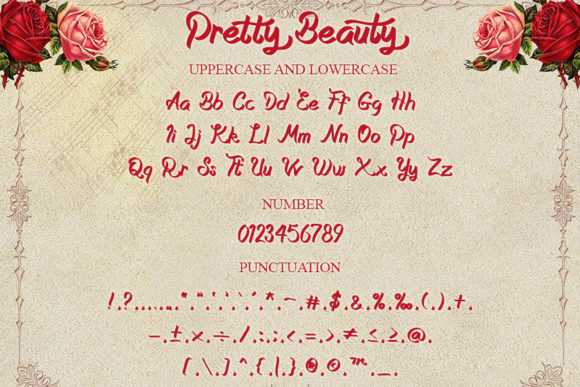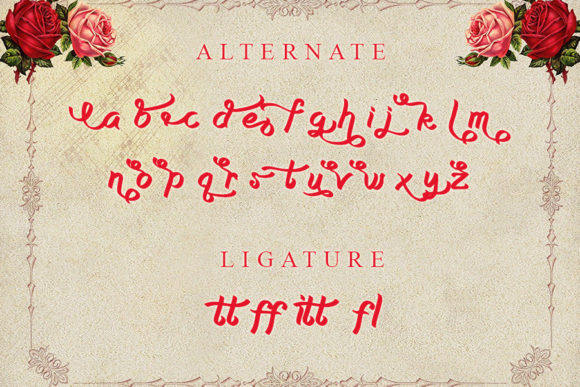
Introduction to Pretty Beauty Font
Have you ever found yourself staring at a blank canvas, longing to bring a design to life, but struggling to find the perfect font to match your vision? I know I have. As designers, we’re constantly on the hunt for the perfect typography to elevate our creative projects and make them truly stand out. And that’s where the Pretty Beauty Font comes in – a stunning, cursive handwritten font that’s sure to add a touch of magic to any design.
With its thick, playful letters and joyful feel, the Pretty Beauty Font is a game-changer for designers looking to add a romantic touch to their projects. Whether you’re working on a wedding invitation, a social media graphic, or a branding campaign, this font is sure to be a valuable addition to your design resource arsenal.
Key Features of Pretty Beauty Font
- High-quality, elegant design ideal for creative projects and design resources.
- Character set includes a wide range of alphabets, numbers, and symbols.
- Unique, handcrafted design with intricate details and subtle flair, making it a standout design resource.
Honest Review: Pretty Beauty Font
One thing that really stood out to me was the high quality of the font. The smooth lines and elegant curves make it perfect for a wide range of design applications. The transparent background is also a great feature, allowing for easy integration with various backgrounds and images.
- ✨ High-quality design with smooth lines and elegant curves
- ✨ Suitable for a wide range of design applications
- ⚠️ Limited character set, may not be suitable for long text
- ⚠️ Not as versatile as some other fonts in the same category
Overall, I’m impressed with the Pretty Beauty Font and would definitely consider using it in future design projects. While it may not be perfect, its high quality and elegant design make it a great addition to any design resource library.
Tips for Getting the Most Out of Pretty Beauty Font
For a transparent background, use the font with a solid-colored shape or image behind it. Experiment with different font sizes and colors to create unique and eye-catching designs. You can also use the font in combination with other design resources to create a cohesive and stylish look.
The Pretty Beauty Font is perfect for a variety of creative projects, including wedding invitations, fashion designs, and beauty product labels. Its elegant and sophisticated design makes it ideal for use in high-end marketing materials and branding projects.